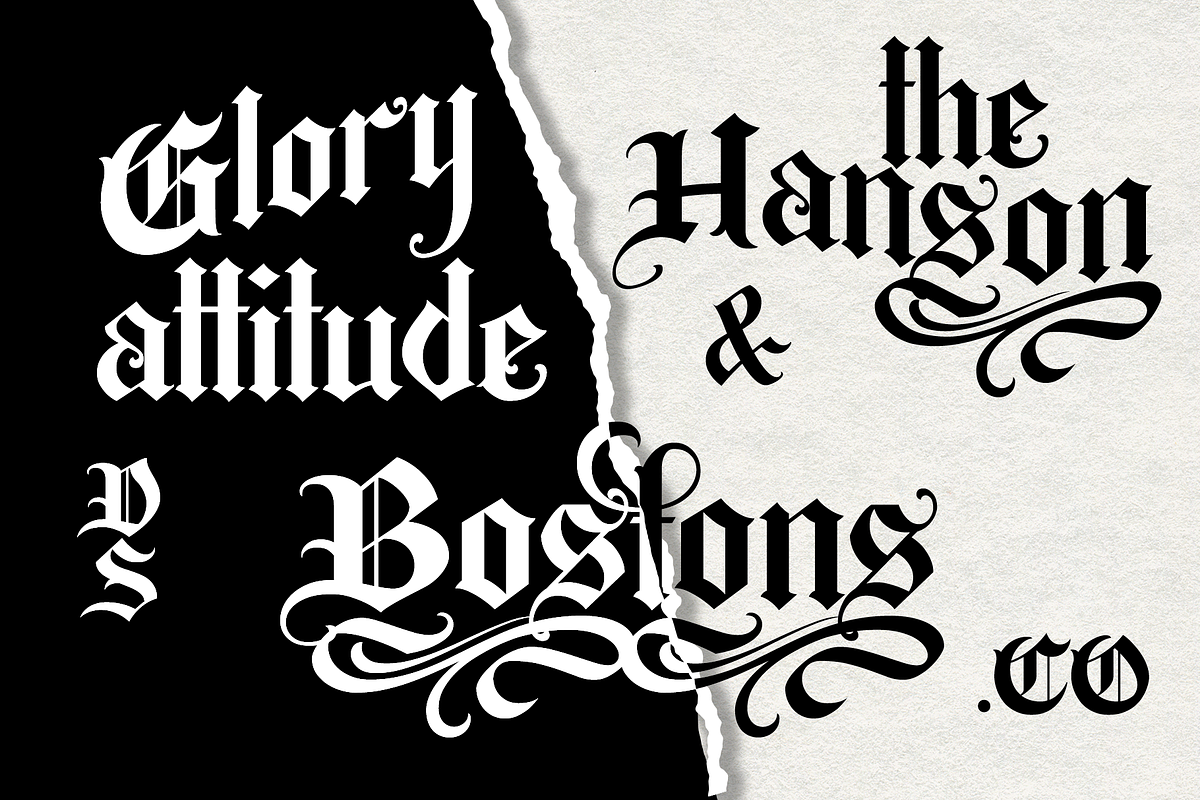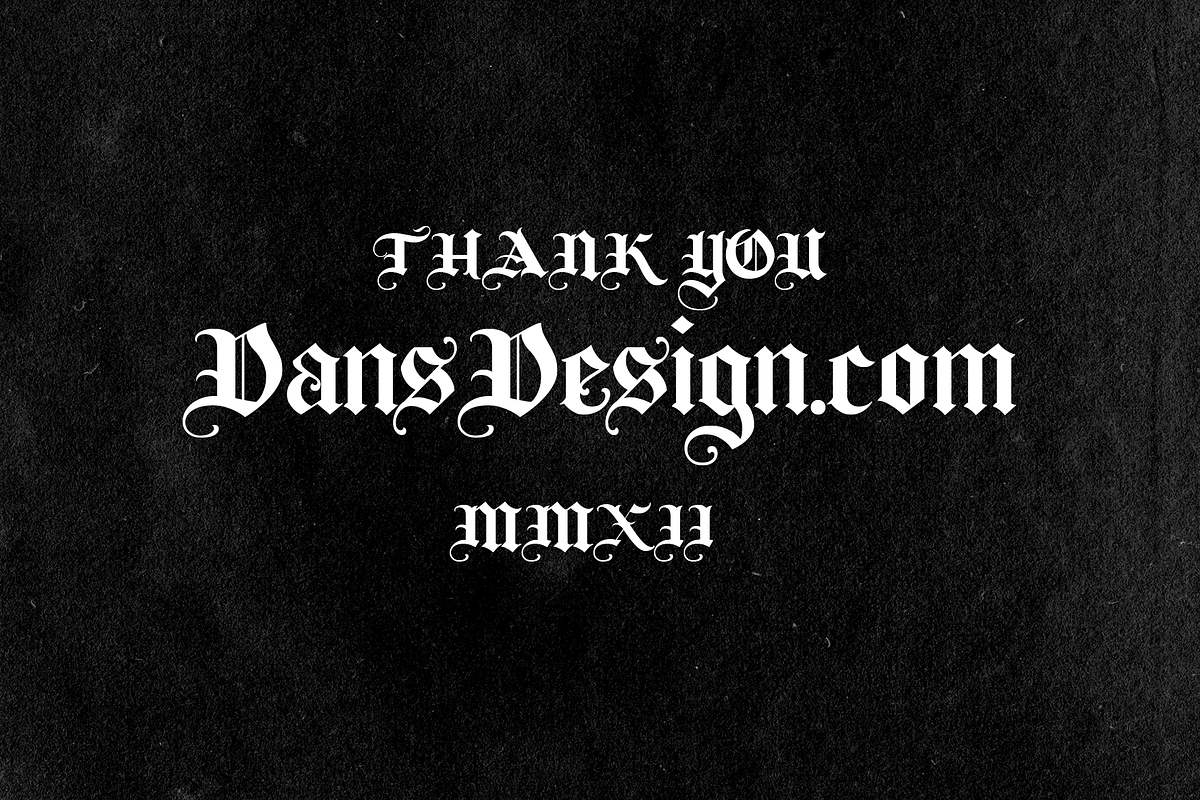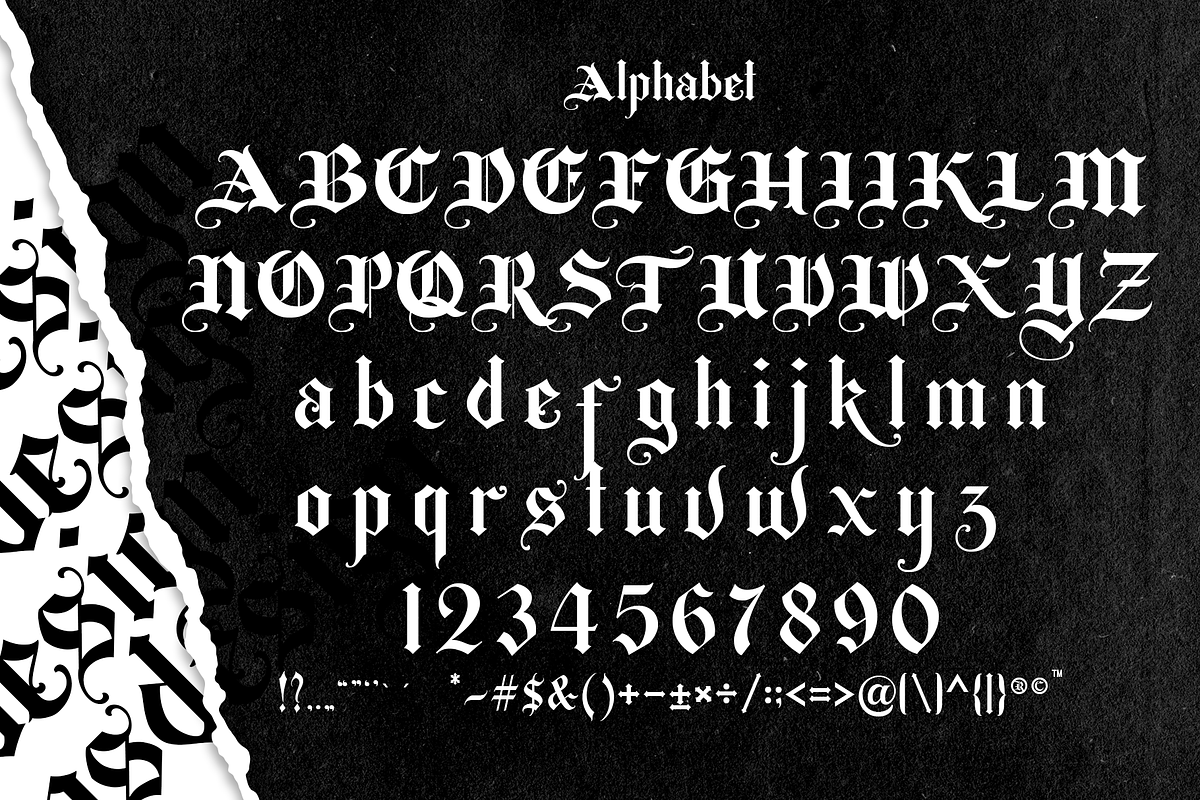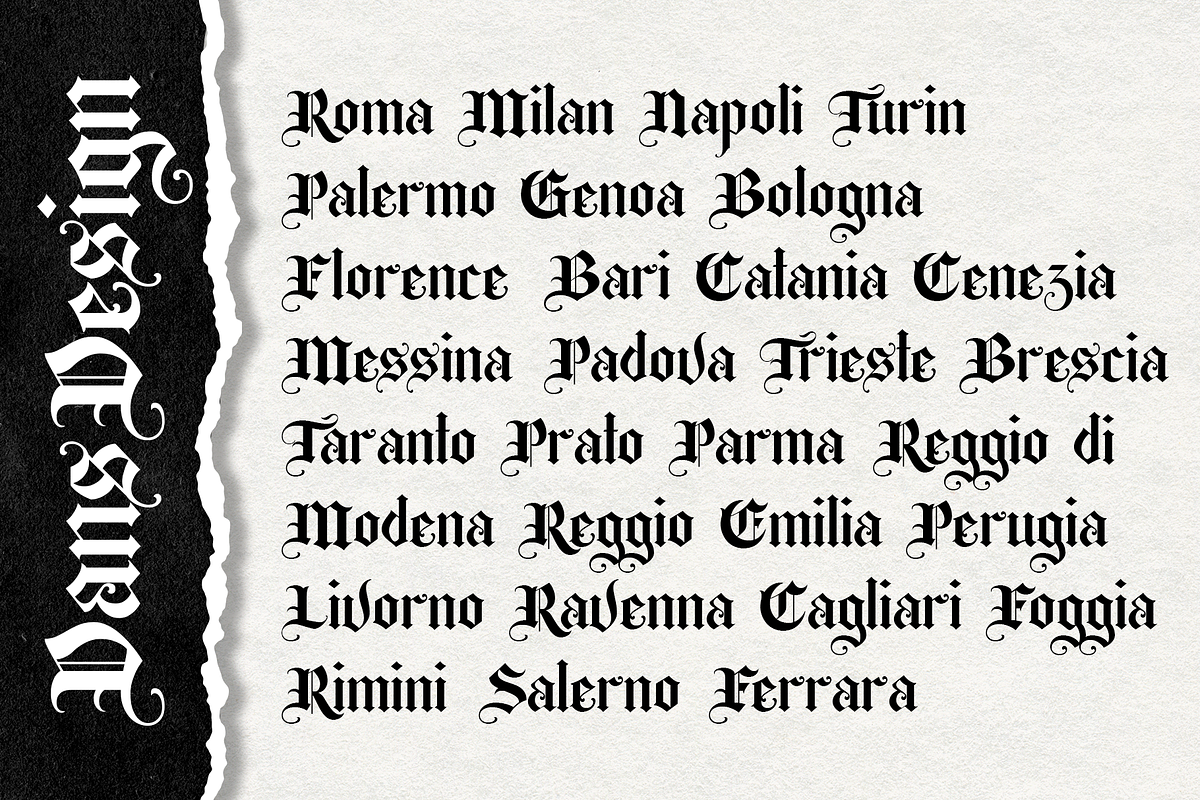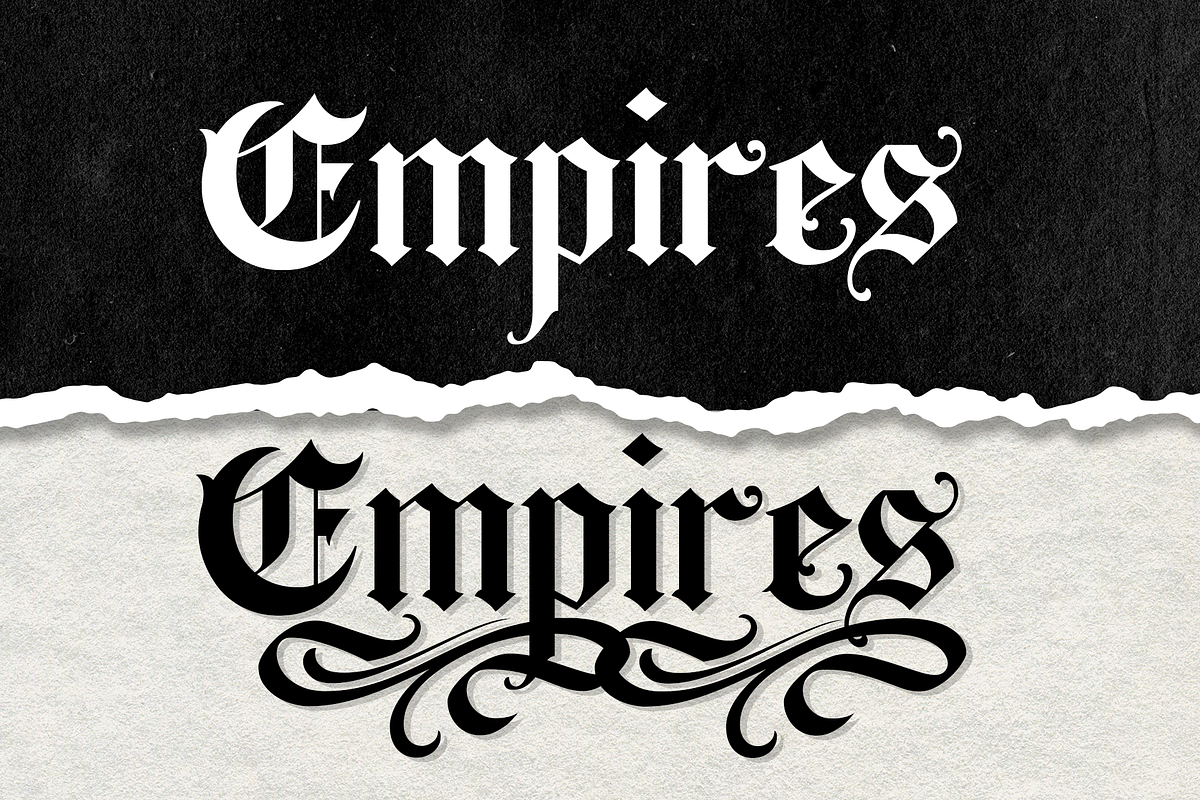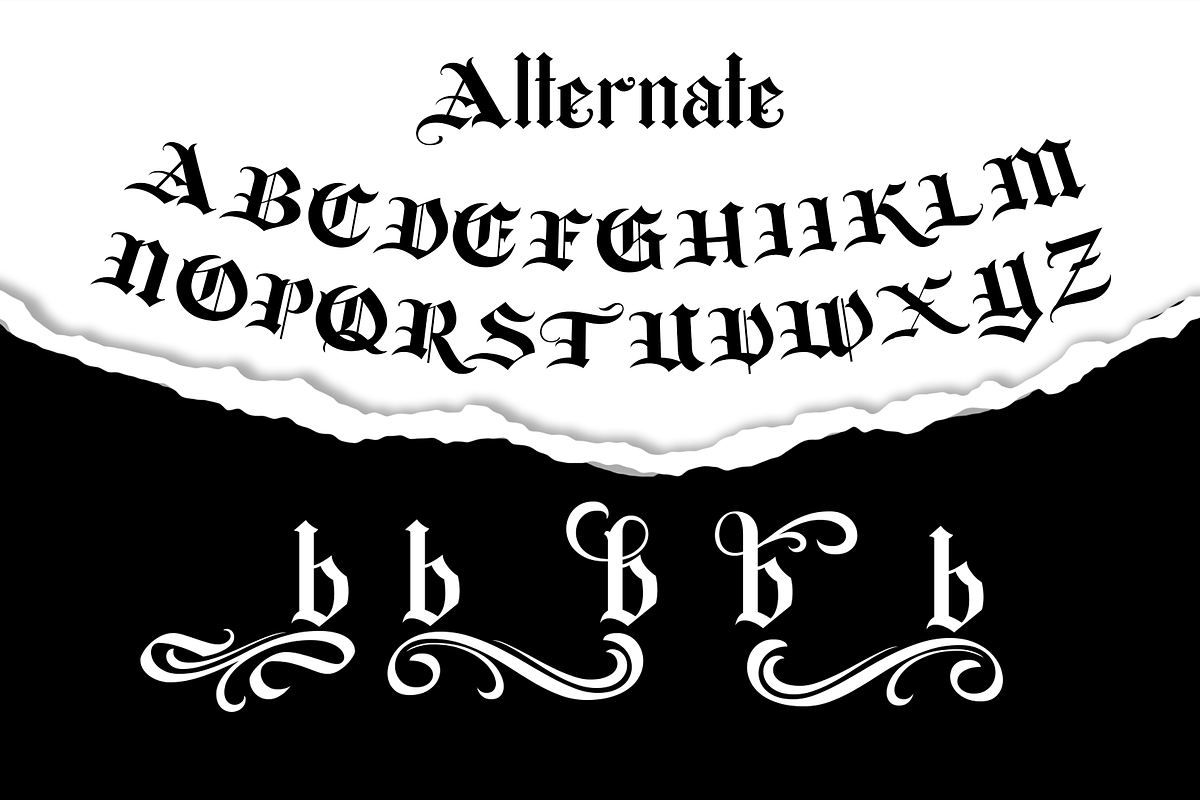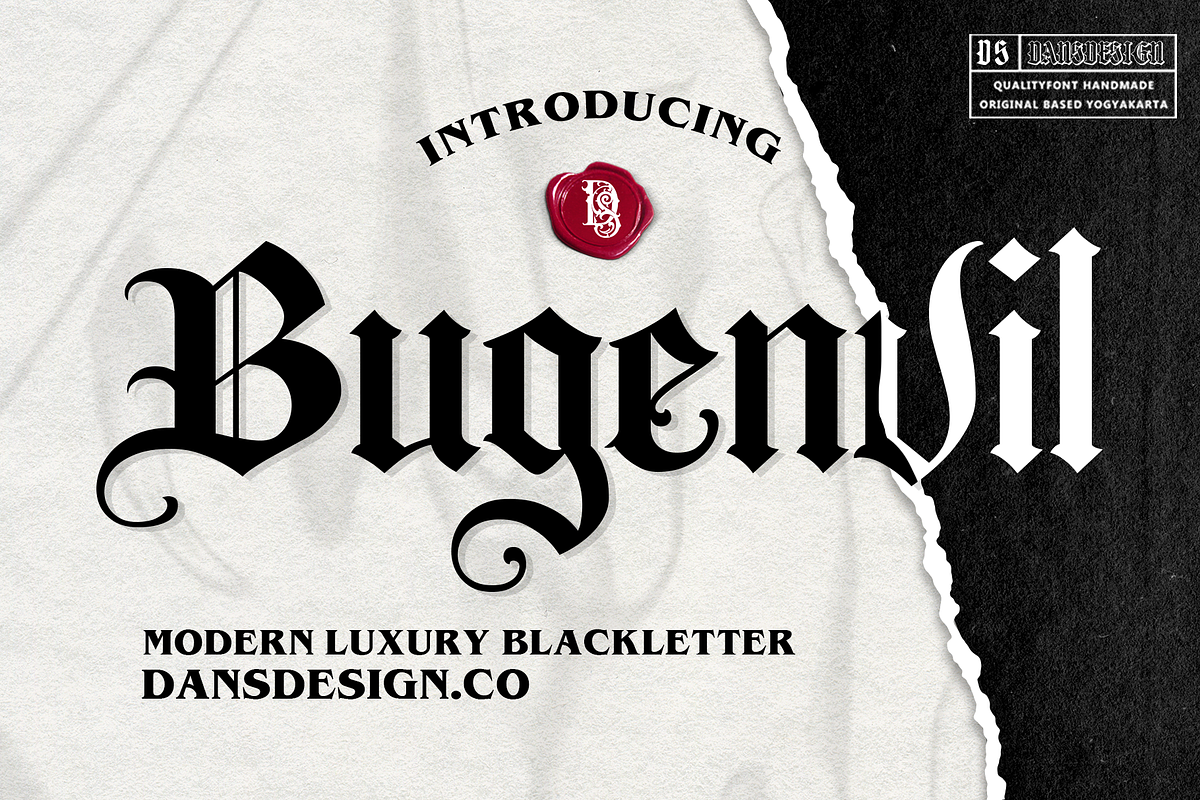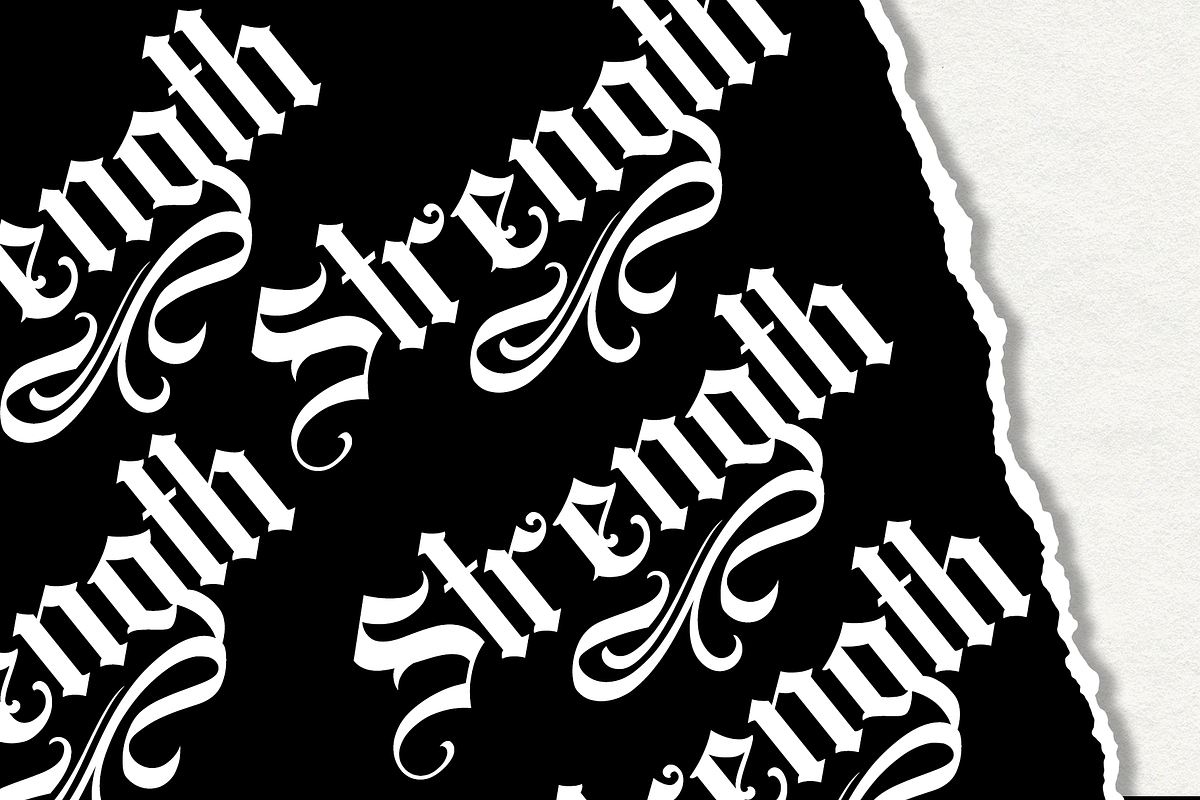
Bugenvil Modern Blackletter
Dansdesign Proudly present Bugenvil modern blackletter font, This font is made with references to various letters that I combine and design with my style.
Bugenvil are great and usefull for product logo, poster title, headline, packaging, badge, packaging logo , clothing brand logo, Vintage design and much more